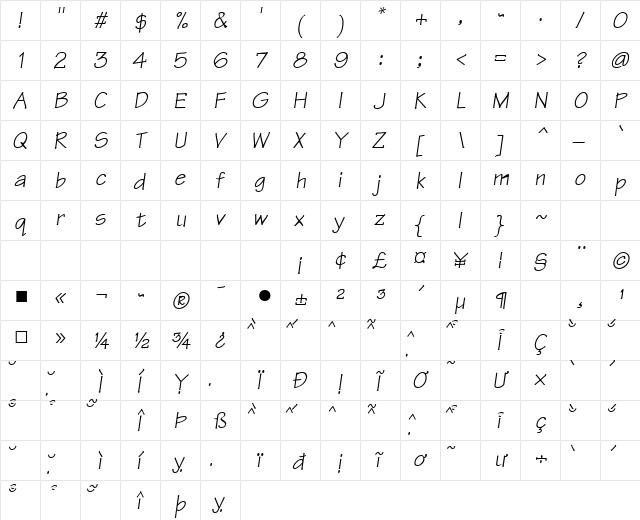
VNI-Tekon Italic
Design Context for VNI-Tekon Typeface
VNI-Tekon is a composed and adaptable typeface that performs quietly and consistently across a wide range of design contexts. The slanted form adds forward momentum and visual energy.